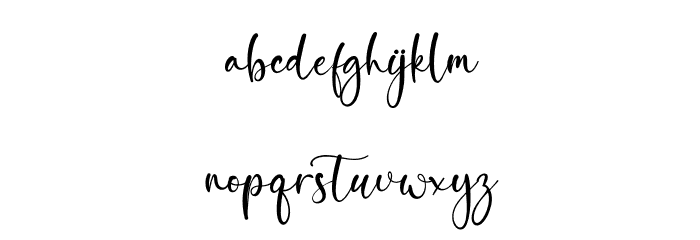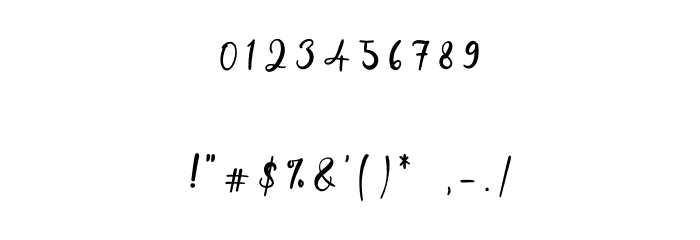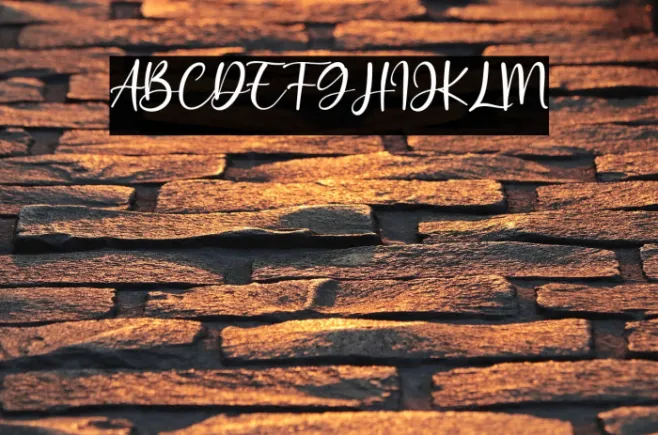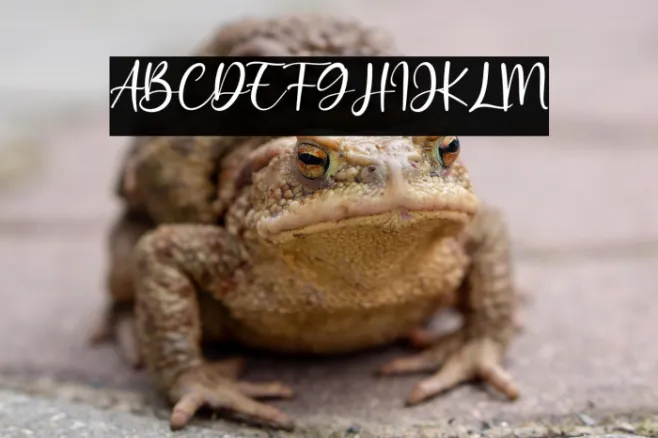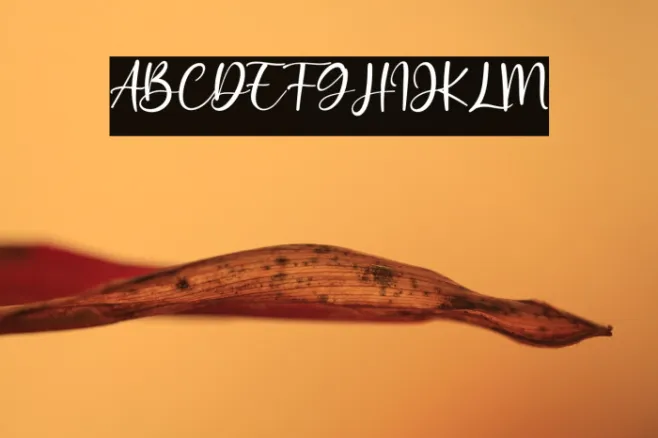
Sunny Rommansa Font
This font exudes a charming and elegant handwritten style, characterized by its fluid and graceful strokes. The uppercase letters are bold and slightly slanted, giving a sense of movement and dynamism. The lowercase letters maintain a consistent flow, with delicate loops and curves that enhance its handwritten appeal. Numbers and special characters are crafted with the same attention to detail, ensuring a cohesive look throughout. The overall design is both sophisticated and approachable, making it suitable for a variety of creative projects.
A charming and elegant handwritten font with fluid strokes.
- Font: Sunny Rommansa
- Proposed Projects: Ideal for wedding invitations, greeting cards, branding, and logo design.
- Category: Handwritten
- Overall Style: Elegant and Sophisticated
- Use Case: Logos, Invitations, Greeting Cards